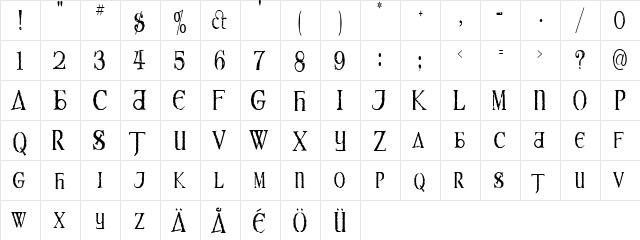
Irzuley Regular
Design Context for Irzuley Typeface
Irzuley is a composed and adaptable typeface that performs quietly and consistently across a wide range of design contexts.